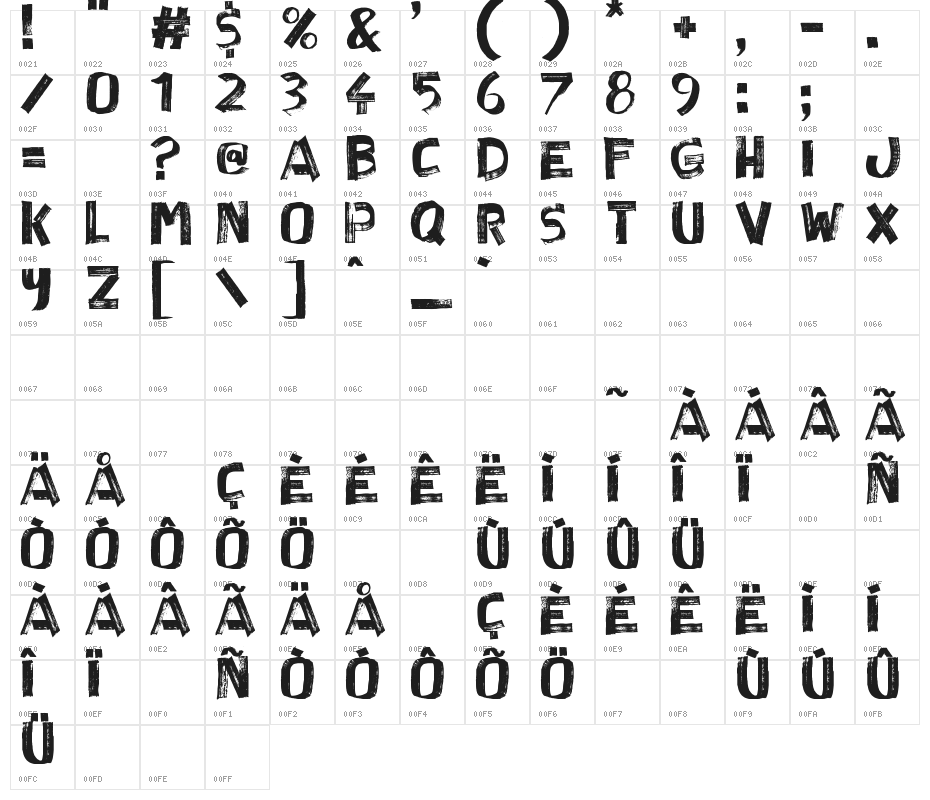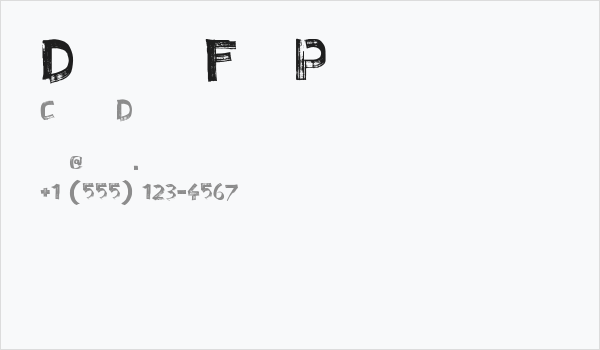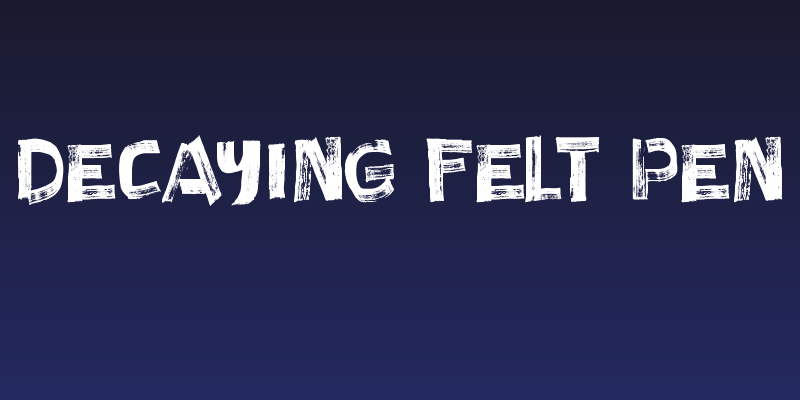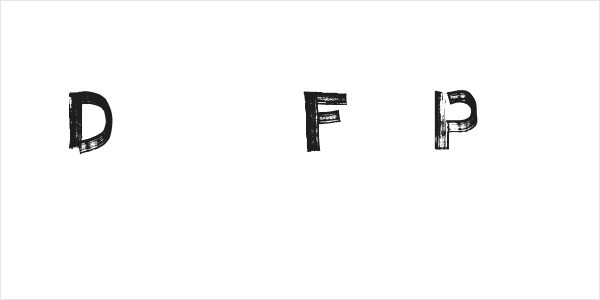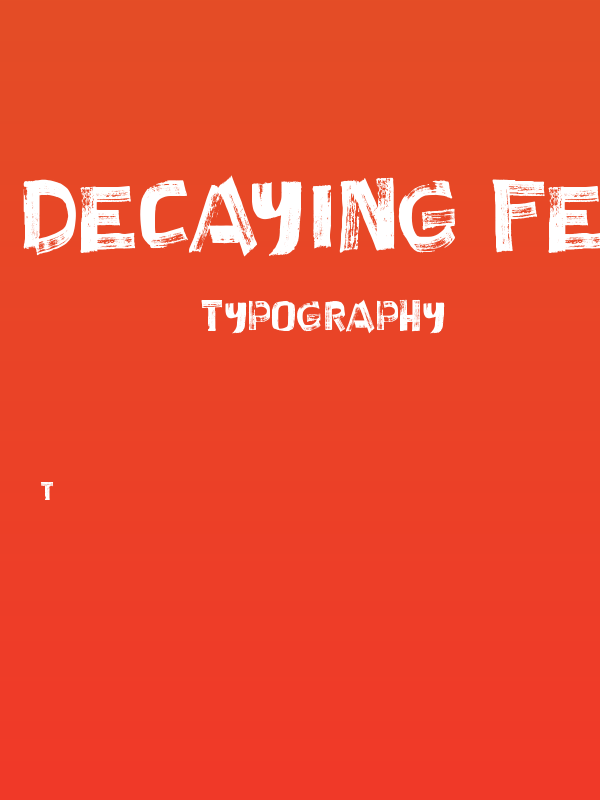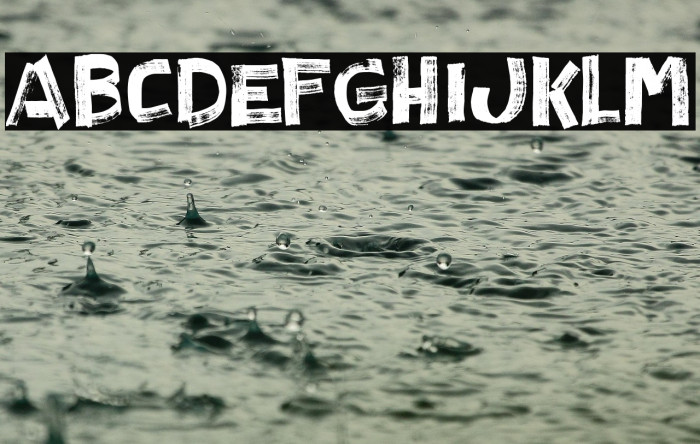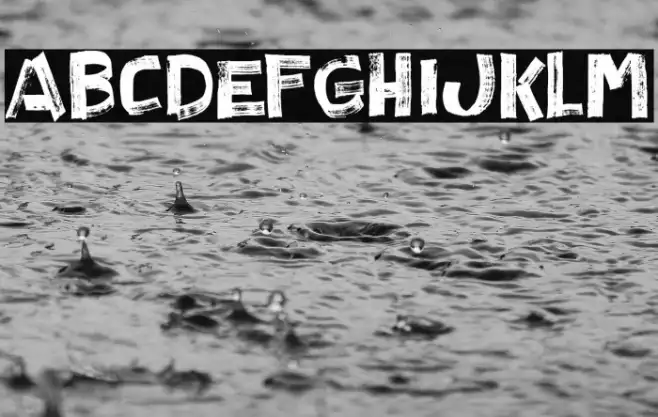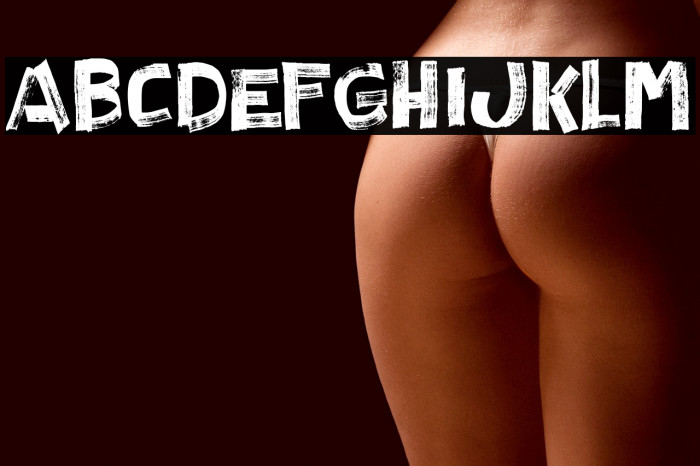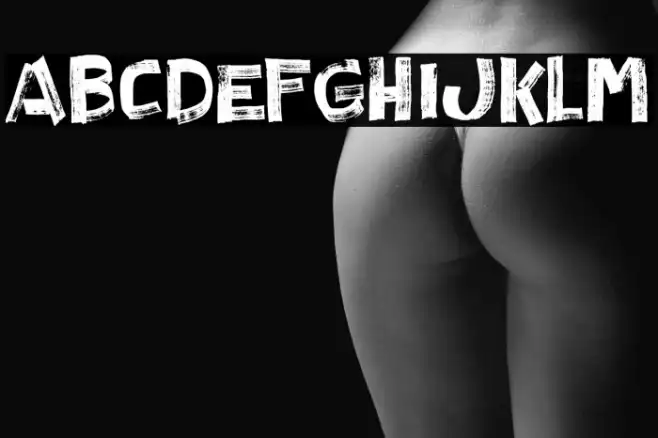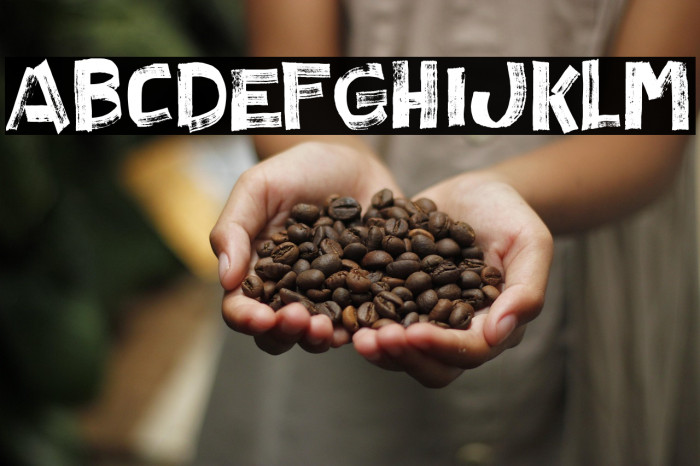
Decaying Felt Pen Font
Decaying Felt Pen Description
This font exhibits a rugged, distressed style reminiscent of hand-drawn lettering with a felt pen. Each character features uneven edges and varying stroke thickness, giving it a raw, organic feel. The uppercase letters are bold and assertive, while the numerals and special characters maintain the same distressed aesthetic. The font's unique texture suggests a sense of decay or weathering, making it ideal for projects that require a gritty, urban look. Its irregularities and imperfections add character and depth, making it stand out in creative designs.
| Overall Style | Urban, Gritty, Distressed |
| Proposed Projects | Ideal for street art designs, music album covers, posters, and edgy branding projects. |